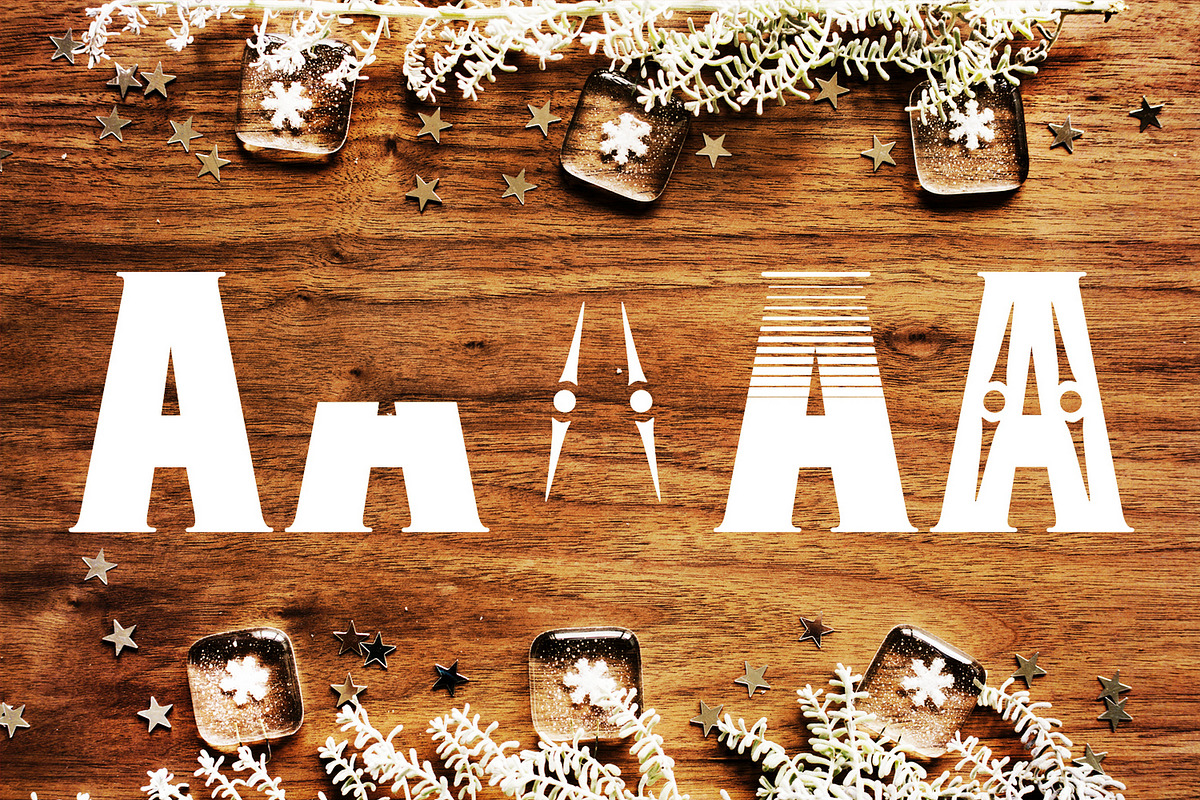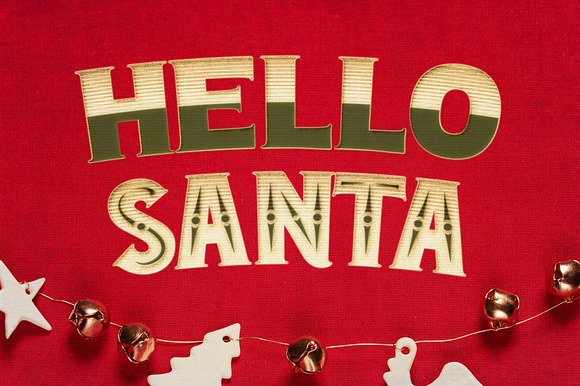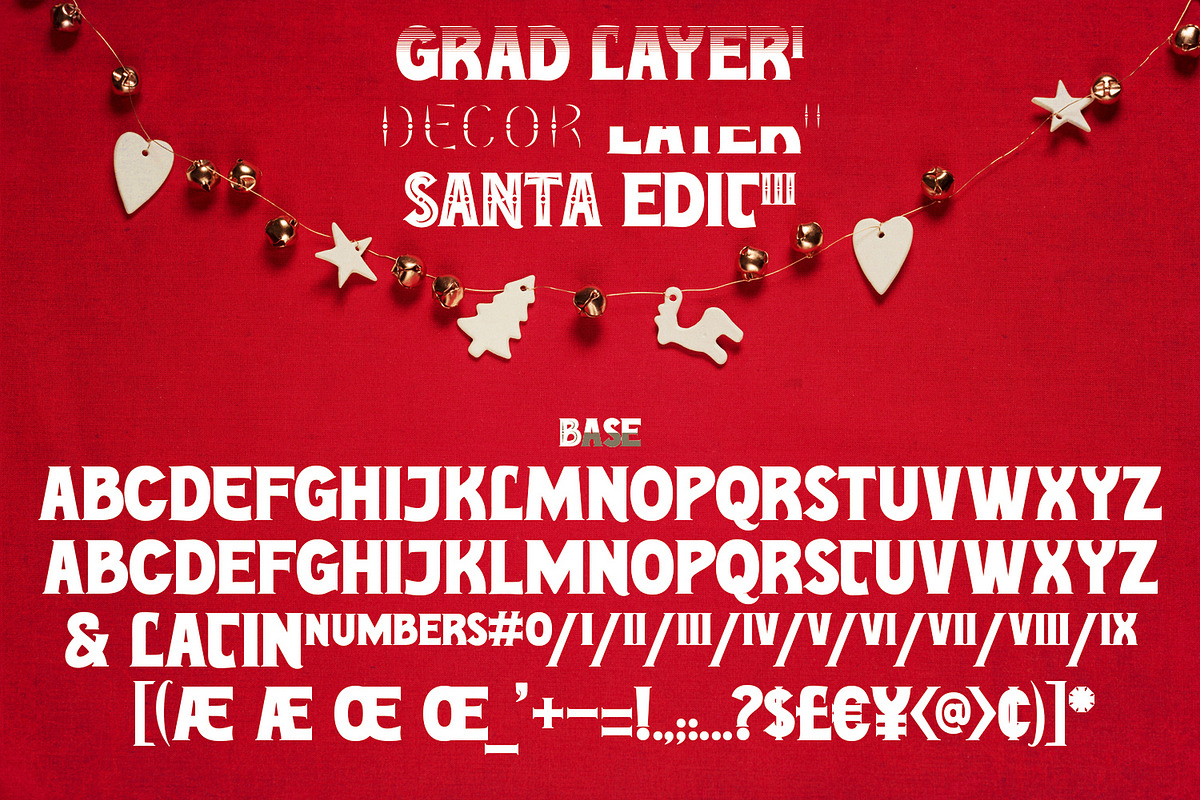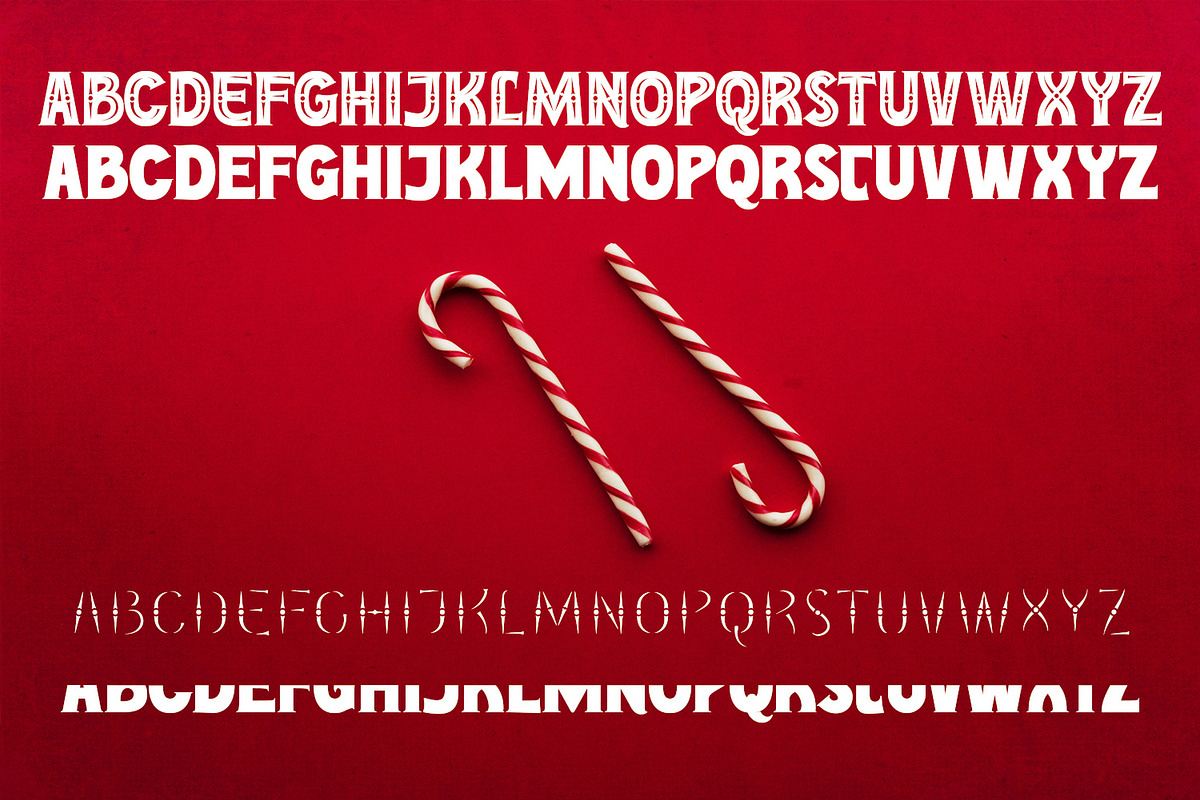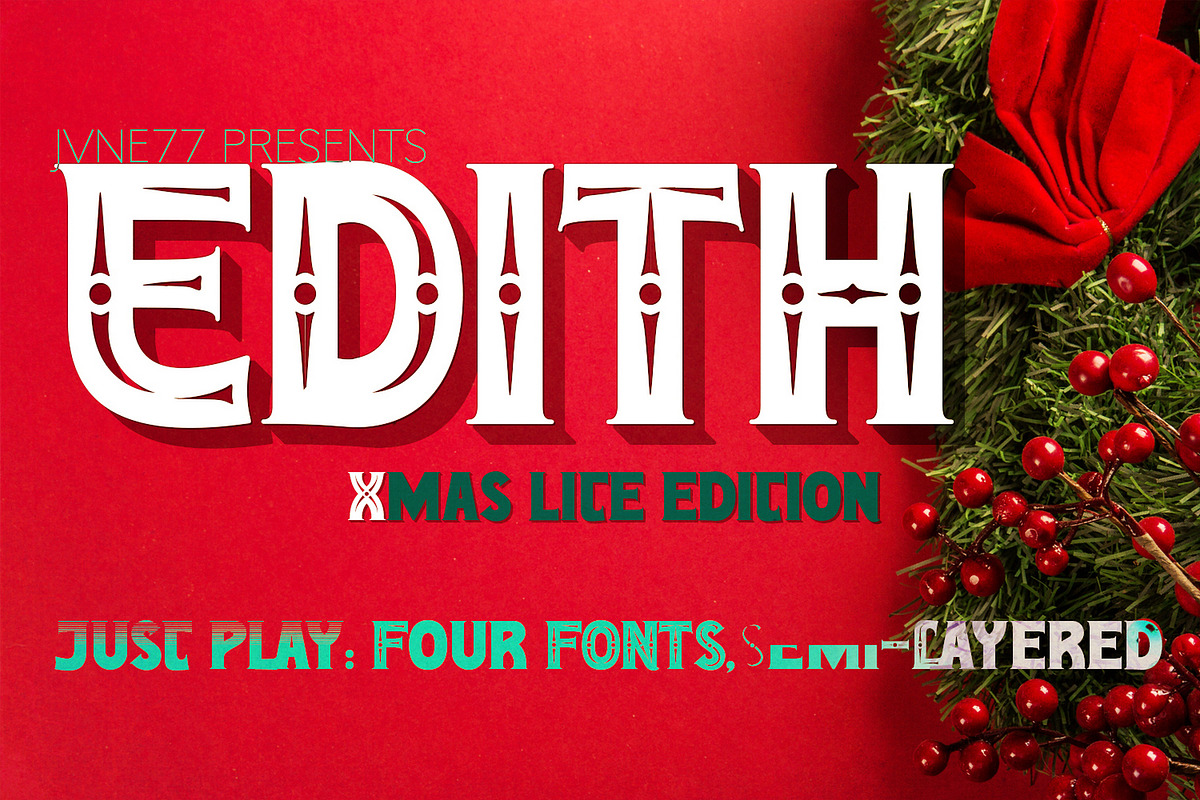
Jvne-EdithLite Layered Font
A nice semi-layered typeface. All-caps with 106 glyphes for each four fonts (BASIC Latin - no accents and no PUA encoding as it is a lite edition - but fully useable for display). It is set for classic title but will greatly meet any card as well